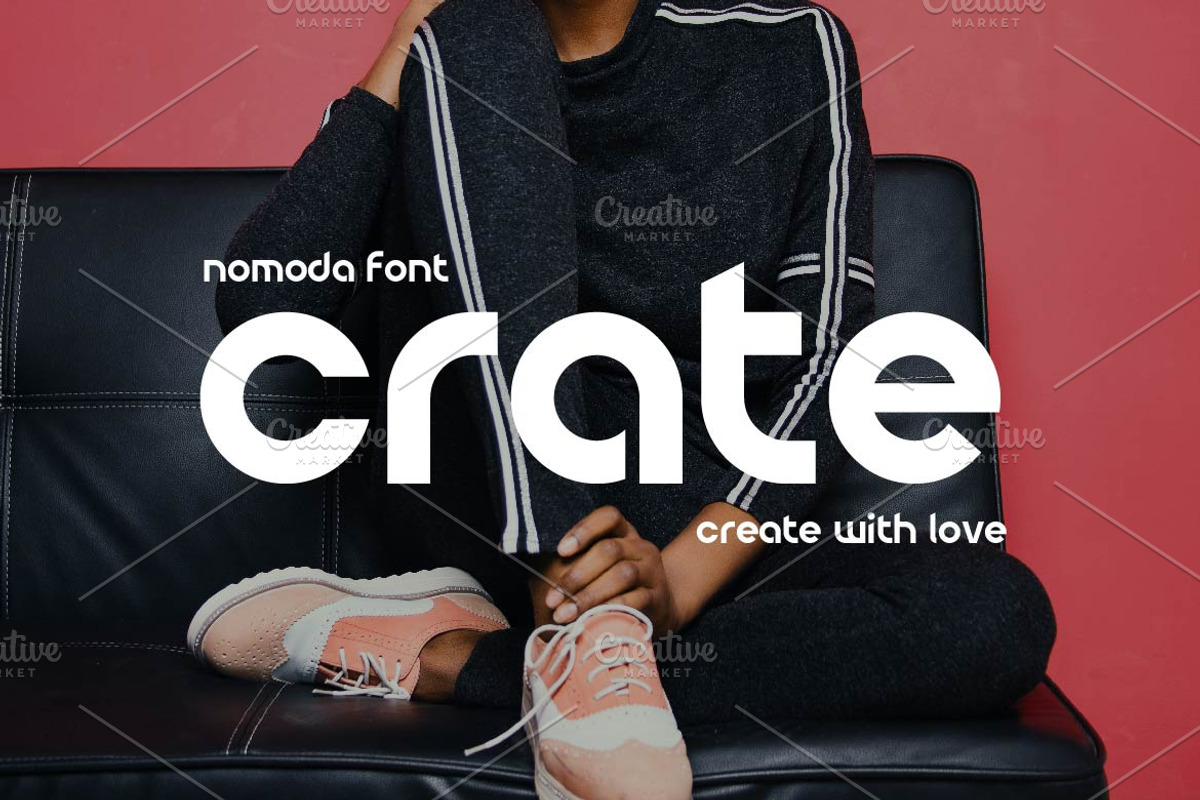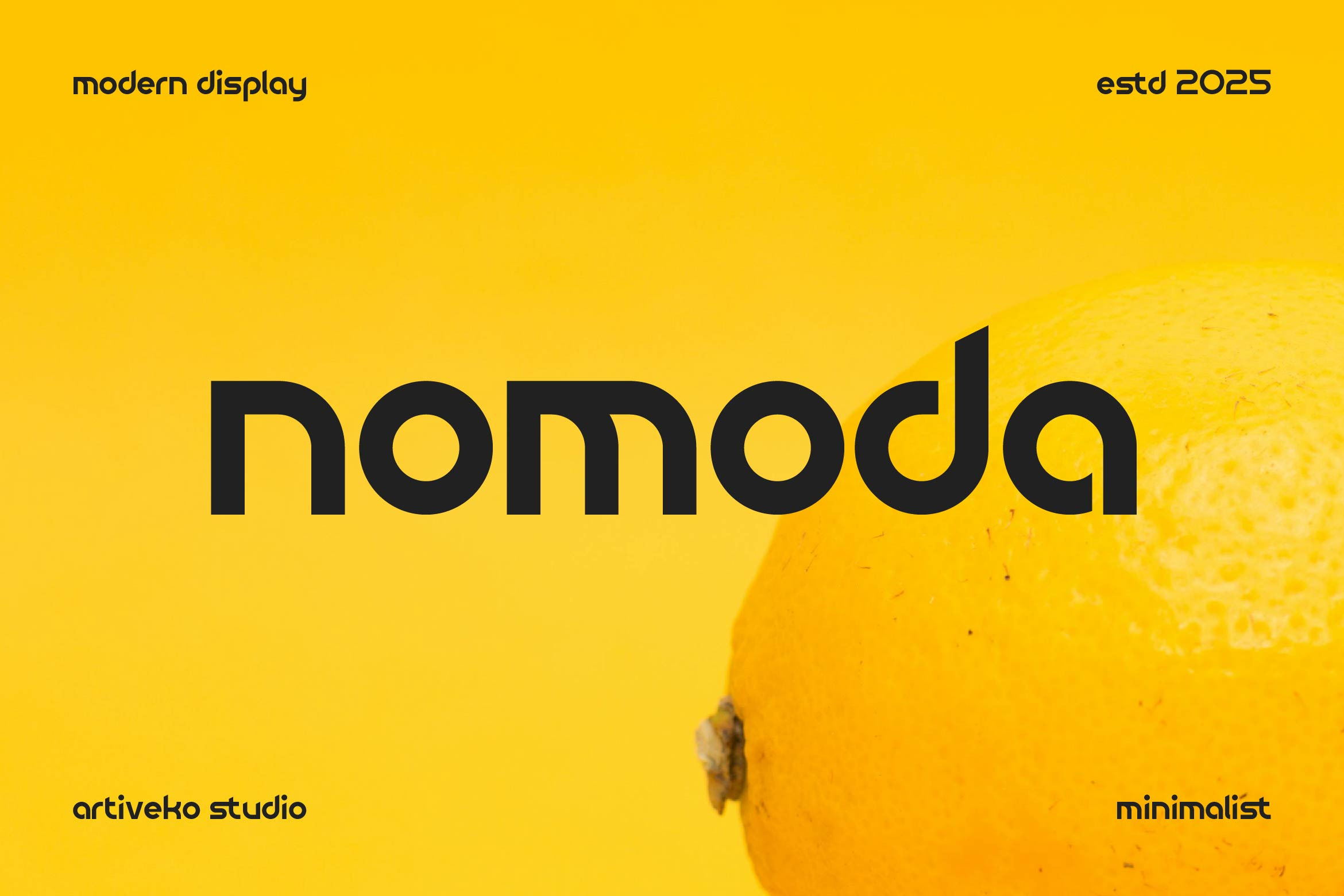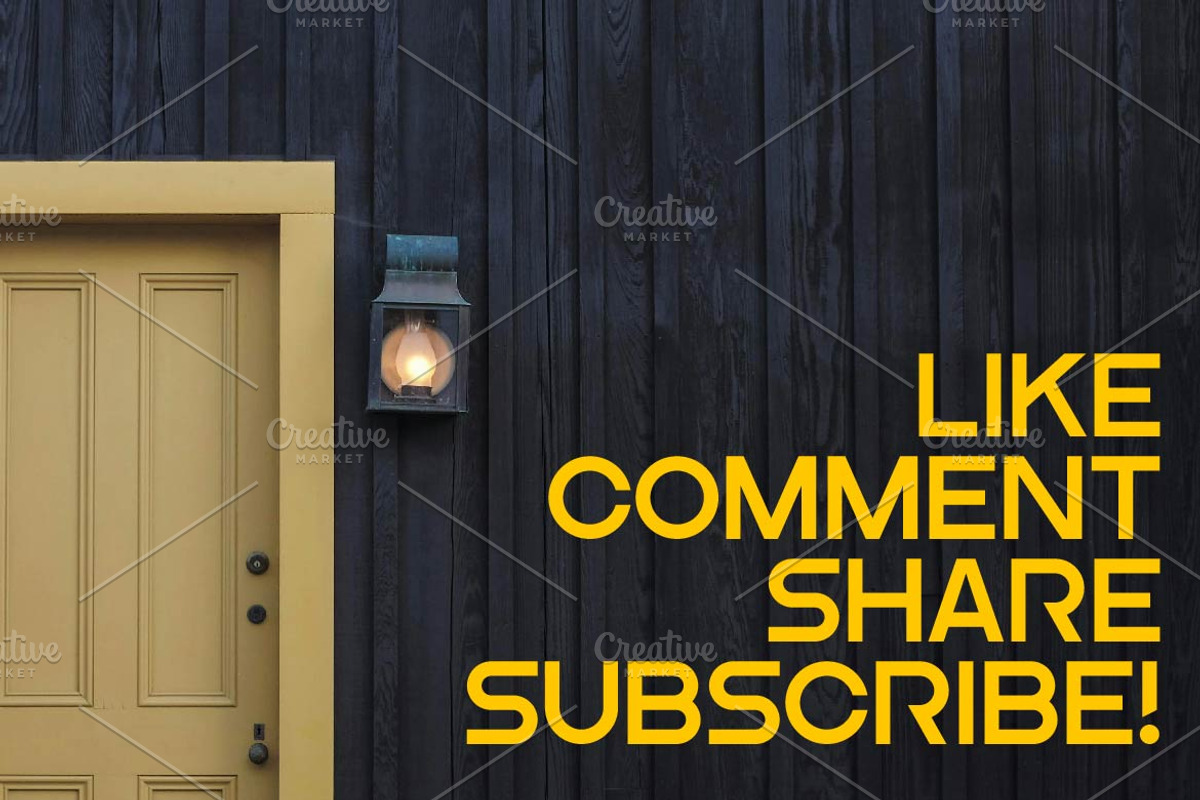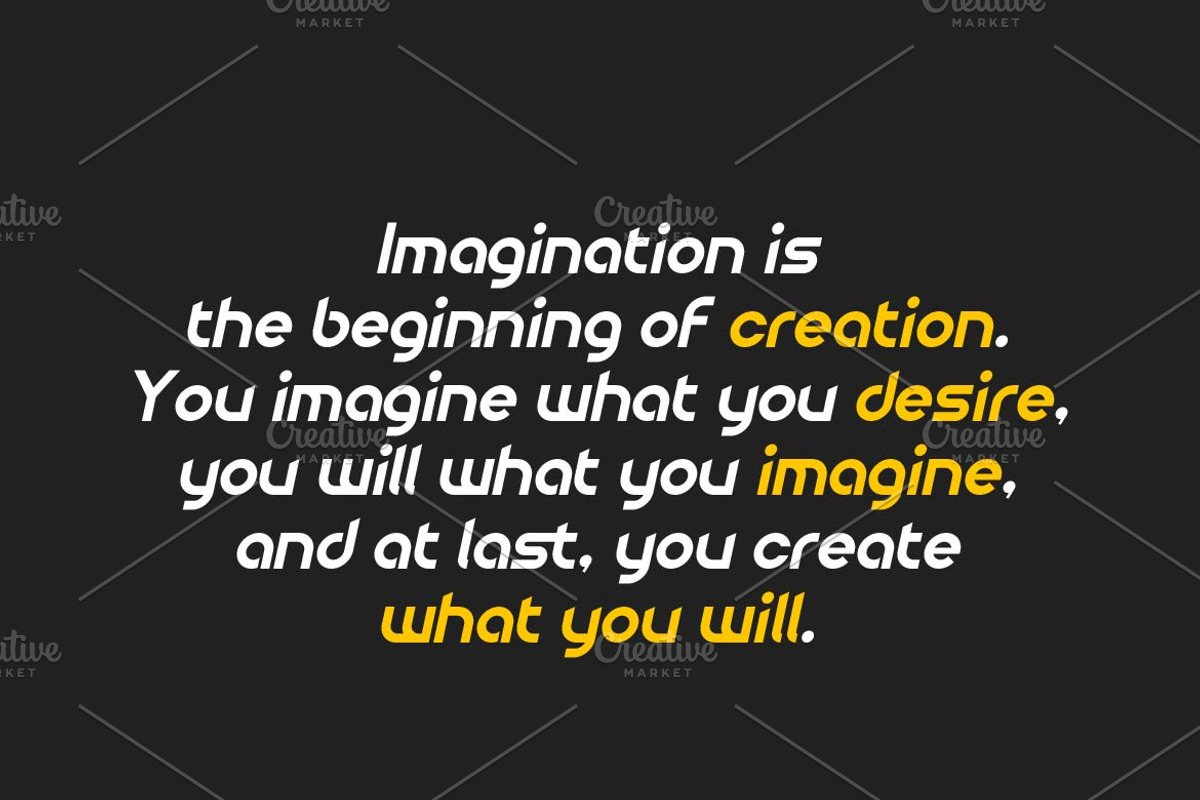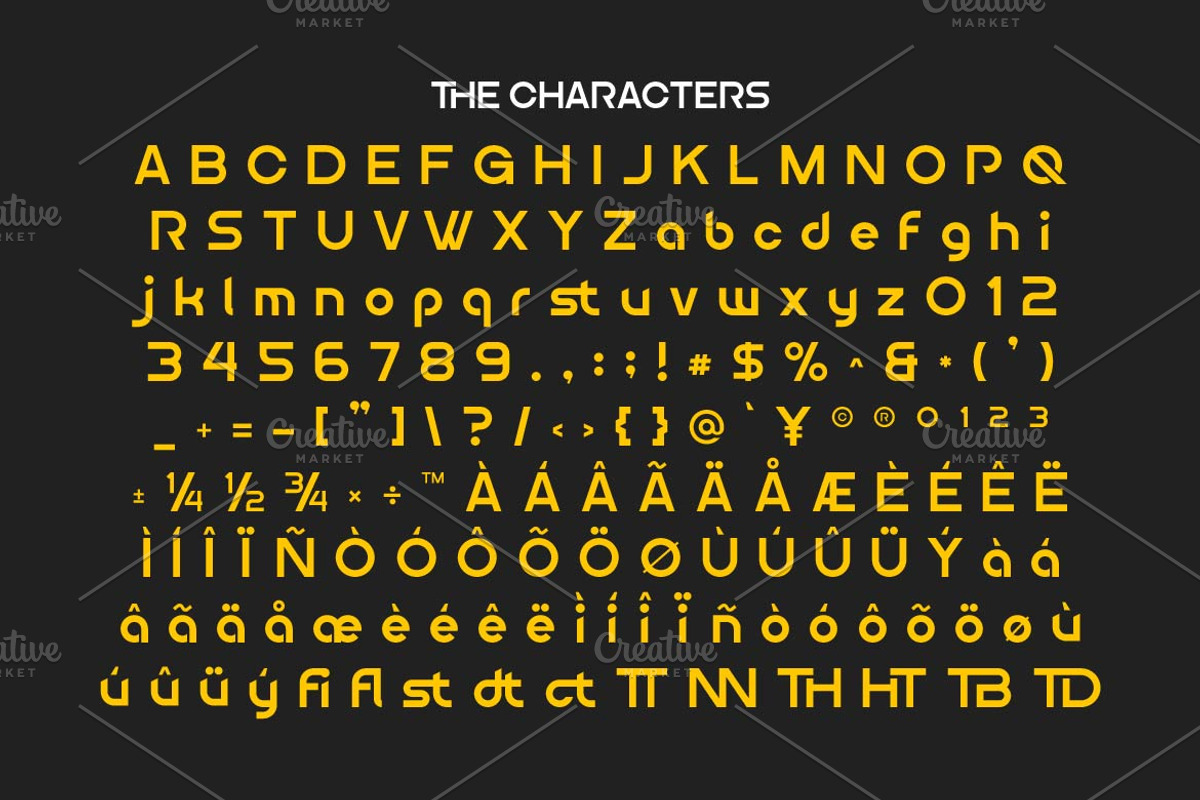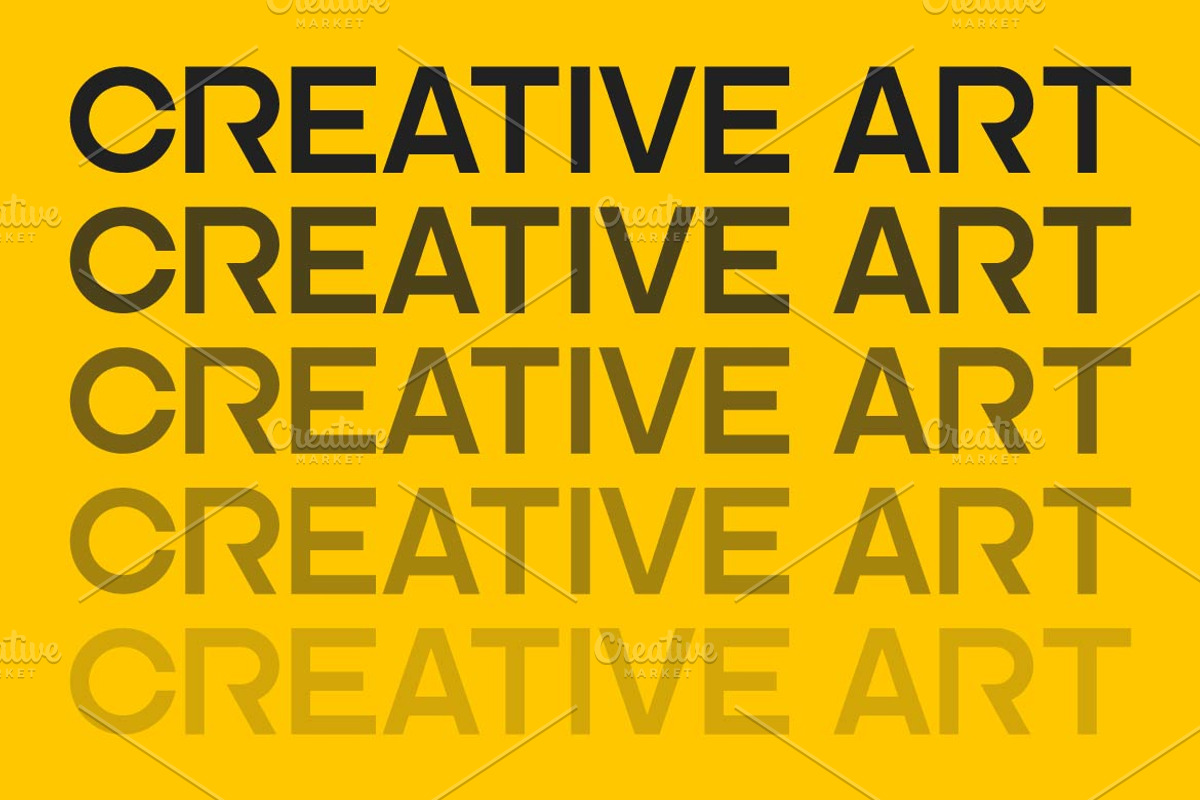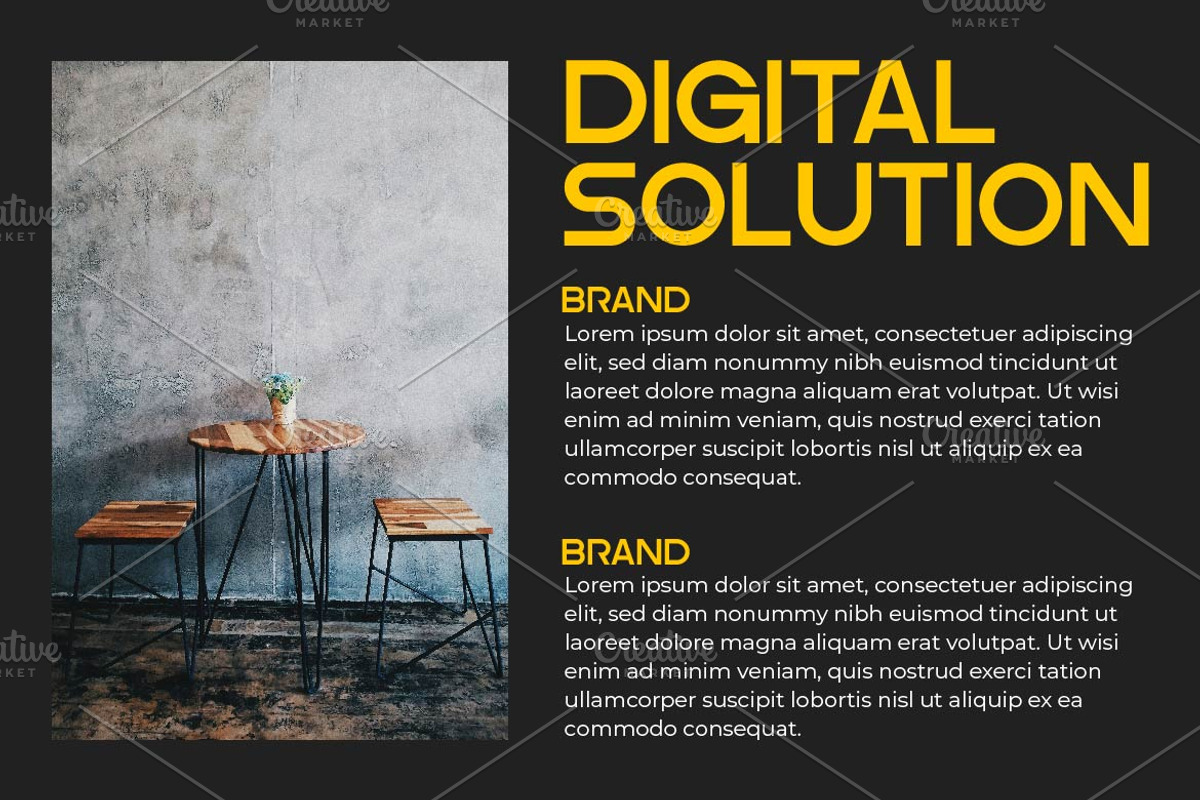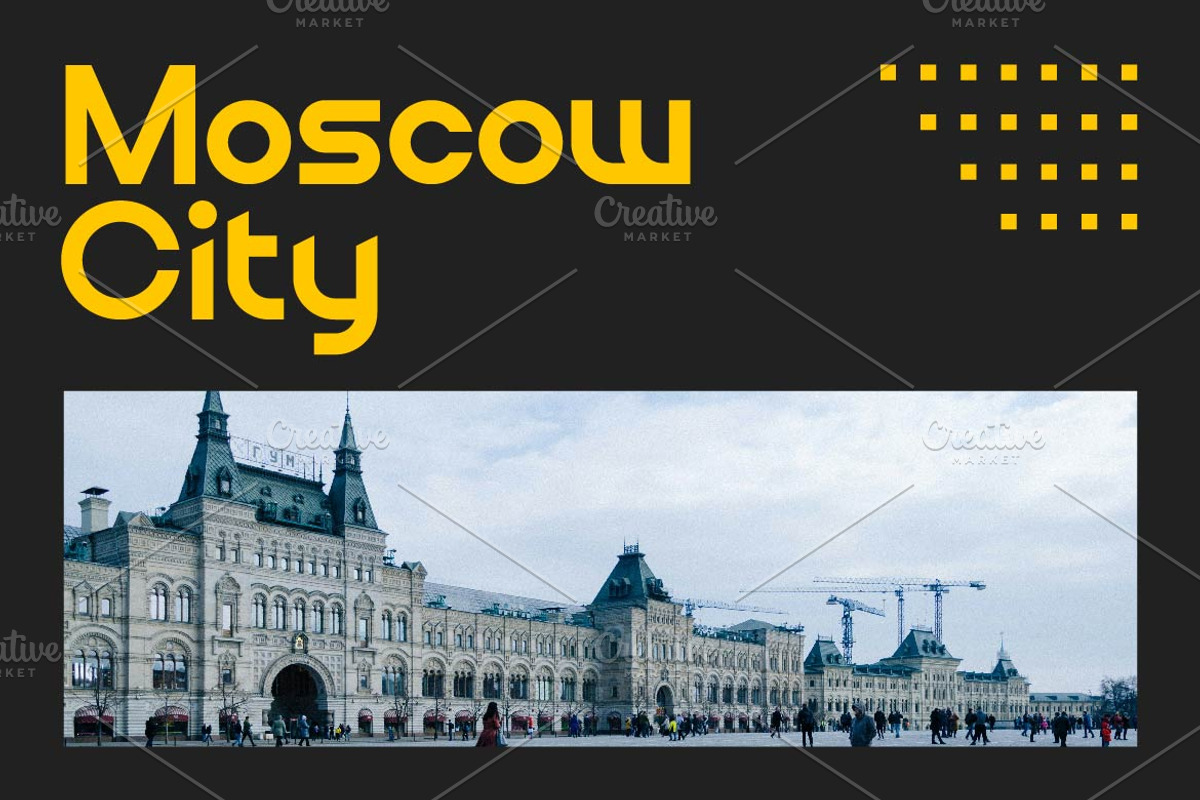
Nomoda Modern Logo Sans Font
Nomoda is a creative sans serif font by Iwan Alwan, designed with a modern and stylish touch. Its sleek, well-balanced letterforms make it perfect for branding, logos, editorial layouts, and digital designs. With multilingual support, ligatures, and alternates, Nomoda offers versatility and uniqueness, making it an excellent choice for projects that demand a fresh, contemporary, and professional look.